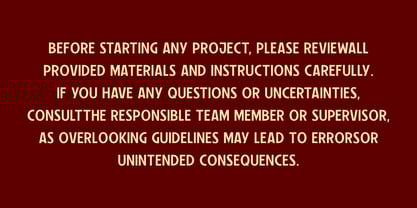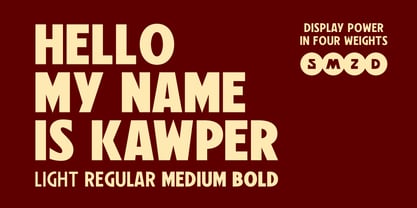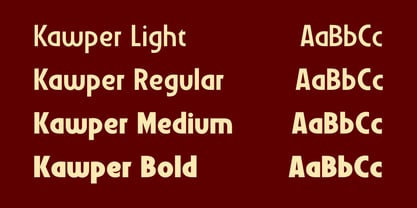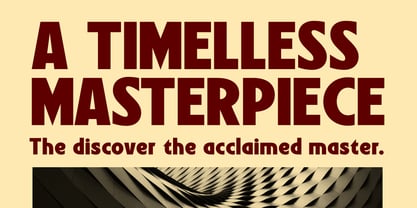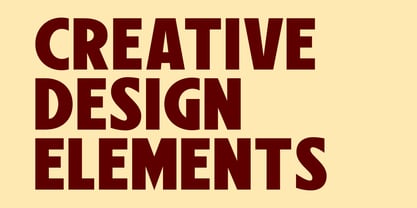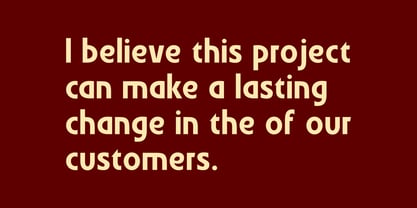
Kawper
by ESEM Type
The Kawper Font Family was designed by Szymon Mandziarz and published by ESEM Type. Kawper contains 4 styles and family package options. More about this family
Kawper is a distinctive typeface designed for strong headlines and attention-grabbing projects. Available in four weights – Light, Regular, Medium, and Bold – it offers wide versatility, from subtle text to powerful advertising slogans. Its geometric yet friendly shapes make it equally effective in digital and print design, delivering a cohesive, modern, and memorable visual identity.
Designers: Szymon Mandziarz
Foundry: ESEM Type